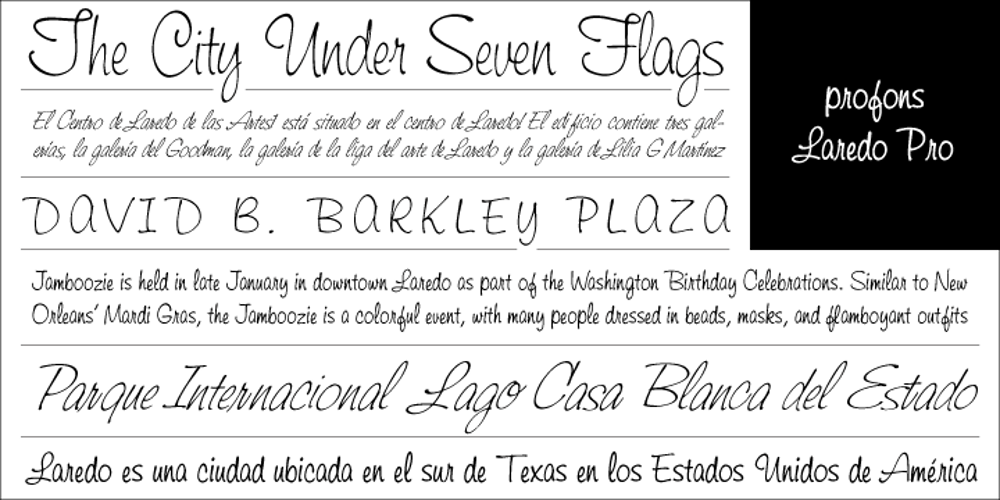
Laredo
Laredo font
Laredo Font Family was designed by Ralph M. Unger and published by profonts. Laredo contains 5 styles and family package options. Distinctive and informal, this unusual script type style is suitable for a wide variety of display applications, particularly where a casual effect is desired.